Best Easter Fonts for Spring Designs
Spring is the perfect season for bright colors, cheerful illustrations, and creative typography. As the weather gets warmer and flowers start blooming, many designers begin creating seasonal graphics for Easter.
One of the most important elements of a successful spring design is choosing the right typography. The best Easter fonts can instantly make a design feel more joyful, playful, and festive. Whether you're designing greeting cards, social media graphics, printable crafts, or seasonal promotions, the right font can make a huge difference.
In this guide, we’ll explore several best Easter fonts from the TypeTasty collection that work beautifully for spring-themed projects.
Why the Best Easter Fonts Matter for Spring Designs
Seasonal designs work best when the typography reflects the mood of the holiday. Easter is often associated with happiness, family gatherings, and colorful decorations. Because of this, designers usually choose fonts that feel:
- playful
- friendly
- soft and rounded
- expressive but readable
The best Easter fonts often feature smooth curves, handwritten styles, or bubbly shapes. These elements help typography feel more welcoming and less formal.
For example, fonts with rounded letters tend to match perfectly with popular Easter design elements such as:
- bunny illustrations
- decorated eggs
- spring flowers
- pastel backgrounds
When these elements are combined with the right typography, the design immediately feels more festive.
MGF Popstar – Fun Bold Star Themed Font
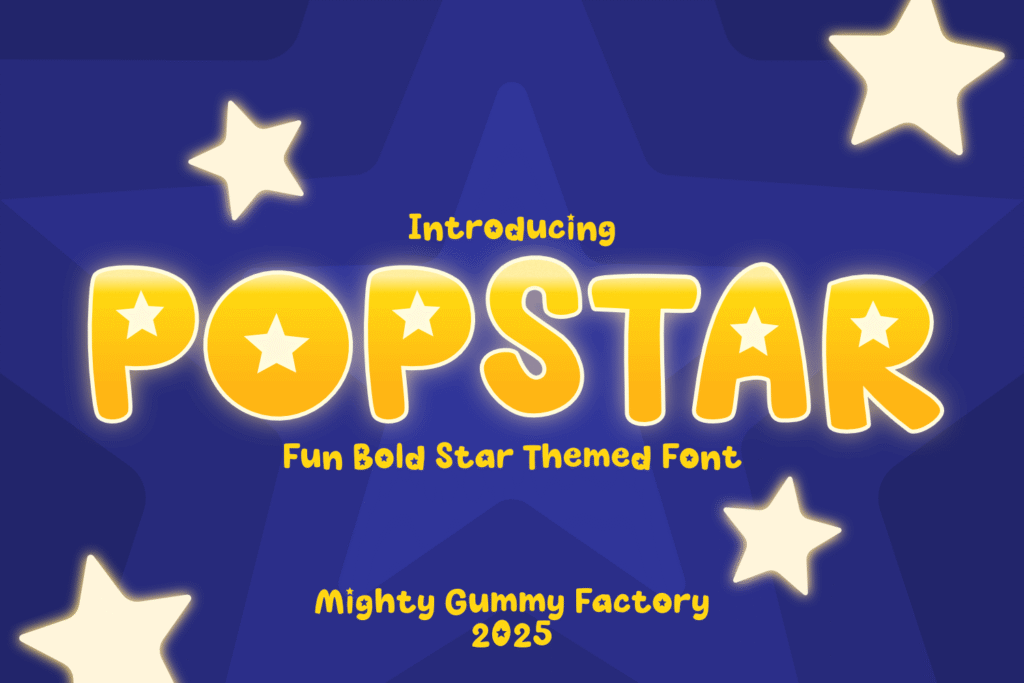
POPSTAR is one of the best Easter fonts if you want a bold and playful look. This display font features star accents inside the letters, giving it a fun and energetic personality.
Because of its chunky shapes and rounded letterforms, POPSTAR works best for large headlines and titles.
Designers often use POPSTAR for:
- Easter greeting cards
- kids party invitations
- Easter sale banners
- printable decorations
- social media graphics
Short phrases like “Happy Easter” or “Spring Festival” look especially vibrant when styled with POPSTAR.
MGF PINLOCK – Lovely Fun Bold Font
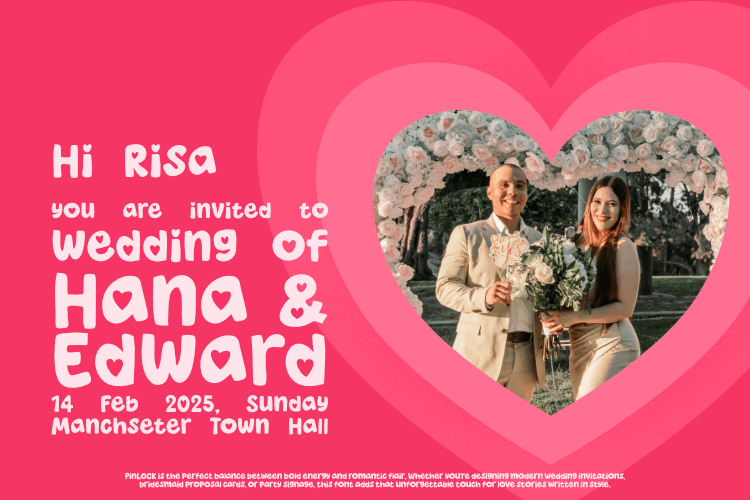
PINLOCK is another great option among the best Easter fonts for cheerful spring designs. This font has a friendly and bubbly personality that makes it perfect for seasonal graphics.
The rounded shapes give the letters a warm and welcoming appearance.
PINLOCK works well for:
- Easter greeting cards
- sticker designs
- craft packaging
- Instagram graphics
- printable planners
In addition, this font pairs beautifully with pastel color palettes commonly used in spring designs.
ZRTW VeganMatey – Friendly Rounded Font
VeganMatey offers a softer and more natural look compared to other best Easter fonts. This rounded handwritten font has an organic style that feels relaxed and approachable.
Because of its friendly shapes, VeganMatey works especially well in designs that feature natural elements like flowers and leaves.
Design ideas include:
- handmade product branding
- lifestyle graphics
- organic packaging
- spring blog posts
Its smooth letterforms create a calm and welcoming aesthetic that fits perfectly with spring themes.
ZRTW Rainsoul – Emotional Handwritten Font
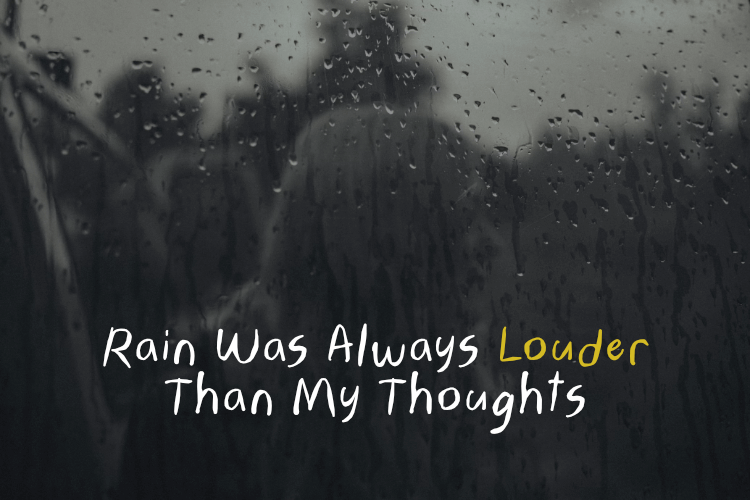
Rainsoul is a handwritten font that adds a personal and emotional touch to typography. Instead of looking perfectly structured, the letters mimic natural handwriting.
This quality makes Rainsoul one of the best Easter fonts for designs that need a warm and heartfelt tone.
You can use Rainsoul for:
- greeting card quotes
- inspirational messages
- journaling graphics
- blog headers
For Easter-themed projects, Rainsoul works beautifully with phrases like “Easter Blessings” or “Celebrate Spring.”
ZRTW Hackynote – Playful Sticky Note Font
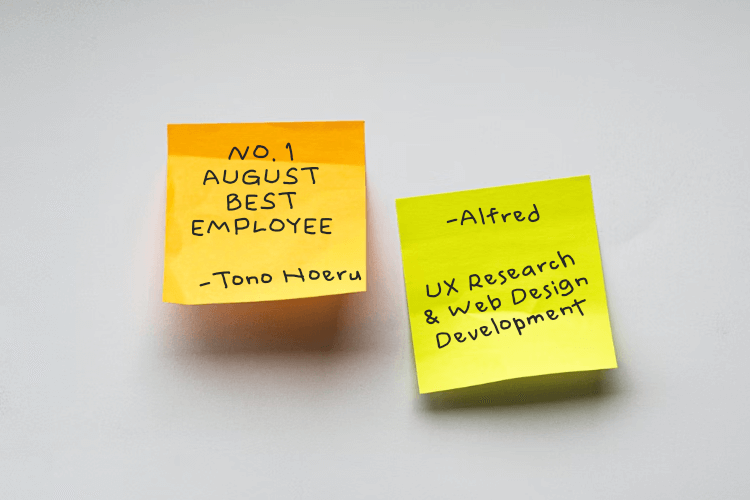
Hackynote is a playful handwritten font that fits perfectly into the category of best Easter fonts for DIY and craft-based designs.
Its casual and friendly appearance makes it ideal for creative projects.
Hackynote works well for:
- printable activity sheets
- craft templates
- kids worksheets
- planner stickers
Because Easter often involves family crafts and activities, this font is a natural fit for many seasonal projects.
ZRTW Loverynote – Soft Romantic Handwriting Font
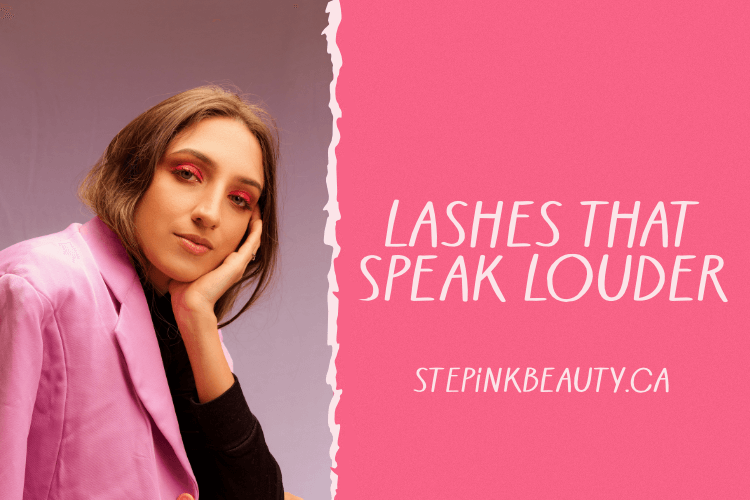
Lovernote is a soft handwritten font that feels warm and expressive. Its flowing strokes make messages appear more personal and emotional.
Fonts like this are often considered among the best Easter fonts for greeting cards and gift-related designs.
Popular uses include:
- Easter greeting cards
- gift tag designs
- quote graphics
- handmade product packaging
When paired with pastel backgrounds and floral illustrations, Lovernote creates elegant and charming spring visuals.
Final Thoughts
Seasonal design is a great opportunity to bring fresh creativity into your projects. Choosing the best Easter fonts can instantly make your graphics feel more festive, warm, and engaging.
Fonts like Popstar, Pinlock, VeganMatey, Rainsoul, Hackynote, Loverynote, and Keriwily each bring unique personality to spring-themed designs.
Whether you're creating greeting cards, social media graphics, printable crafts, or promotional materials, the right typography can help your Easter designs stand out.